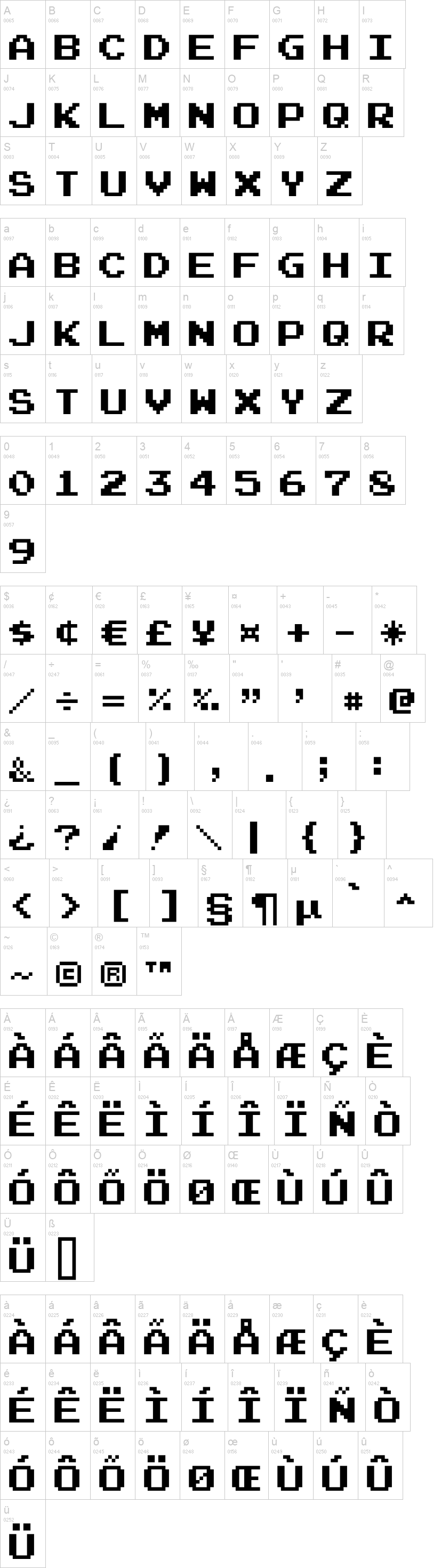
Note of the authorJoystix is a pixel-style typeface inspired by 1980s arcade video games. It's a timeless style that began with Atari in 1976 and extended to a slew of manufacturers throughout the 1980s. It became the de facto font choice anytime a designer wanted to express classic videogame iconography in the twenty-first century. Joystix is classified into two types. Choose Joystix Monospaced if you want an accurate retro game aesthetic. Use Joystix Proportional if you like elegant, proportionately spaced headlines that take up less space. Most Latin-based European, Vietnamese, Greek, and most Cyrillic-based writing systems are supported, including the following languages. Afaan Oromo, Afar, Afrikaans, Albanian, Alsatian, Aromanian, Aymara, Azerbaijani, Bashkir, Bashkir (Latin), Basque, Belarusian, Belarusian (Latin), Bemba, Bikol, Bosnian, Breton, Bulgarian, Buryat, Cape Verdean, Creole, Catalan, Cebuano, Chamorro, Chavacano, Chichewa, Crimean Tatar (Latin), Croatian, Czech, Danish, Dawan, Dholuo, Dungan, Dutch, English, Estonian, Faroese, Fijian, Filipino, Finnish, French, Frisian, Friulian, Gagauz (Latin), Galician, Ganda, Genoese, German, Gikuyu, Greenlandic, Guadeloupean Creole, Haitian Creole, Hawaiian, Hiligaynon, Hungarian, Icelandic, Igbo, Ilocano, Indonesian, Irish, Italian, Jamaican, Kaingang, Khalkha, Kalmyk, Kanuri, Kaqchikel, Karakalpak (Latin), Kashubian, Kazakh, Kikongo, Kinyarwanda, Kirundi, Komi-Permyak, Kurdish, Kurdish (Latin), Kyrgyz, Latvian, Lithuanian, Lombard, Low Saxon, Luxembourgish, Maasai, Macedonian, Makhuwa, Malay, Maltese, Māori, Moldovan, Montenegrin, Nahuatl, Ndebele, Neapolitan, Norwegian, Novial, Occitan, Ossetian (Latin), Papiamento, Piedmontese, Polish, Portuguese, Quechua, Rarotongan, Romanian, Romansh, Russian, Rusyn, Sami, Sango, Saramaccan, Sardinian, Scottish Gaelic, Serbian, Serbian (Latin), Shona, Sicilian, Silesian, Slovak, Slovenian, Somali, Sorbian, Sotho, Spanish, Swahili, Swazi, Swedish, Tagalog, Tahitian, Tajik, Tatar, Tetum, Tongan, Tshiluba, Tsonga, Tswana, Tumbuka, Turkish, Turkmen (Latin), Tuvaluan, Ukrainian, Uzbek, Uzbek (Latin), Venda, Venetian, Vepsian, Vietnamese, Võro, Walloon, Waray-Waray, Wayuu, Welsh, Wolof, Xavante, Xhosa, Yapese, Zapotec, Zarma, Zazaki, Zulu and Zuni.